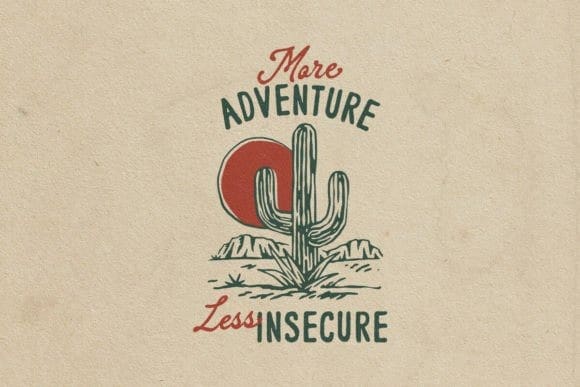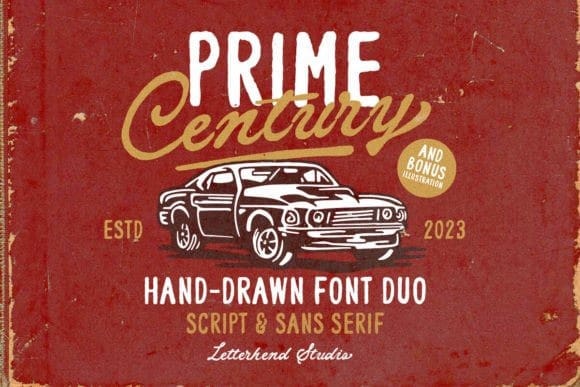
Prime Century Font Duo
Prime Century Font Duo, is an organic hand-drawn font duo consisting of a script paired with a sans serif with a touch of classic look and feel. It comes with a bonus illustration! This type of font is perfectly made to be applied especially in logos, headlines, signage, and the other various formal forms such as invitations, labels, logos, magazines, books, greeting/wedding cards, packaging, fashion, makeup, stationery, novels, labels or any type of advertising purpose.